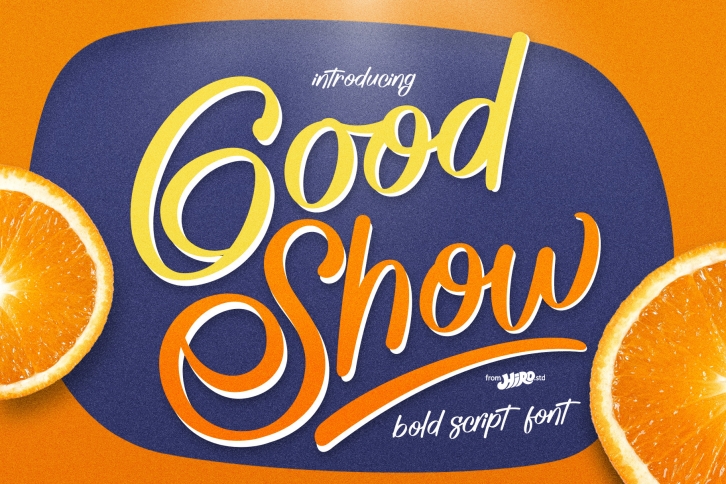
Good Show is the epitome of harmony. It features delicate characters that tie into one another smoothly. Good Show is also PUA encoded which means you can access all of the glyphs and swashes with ease!Â